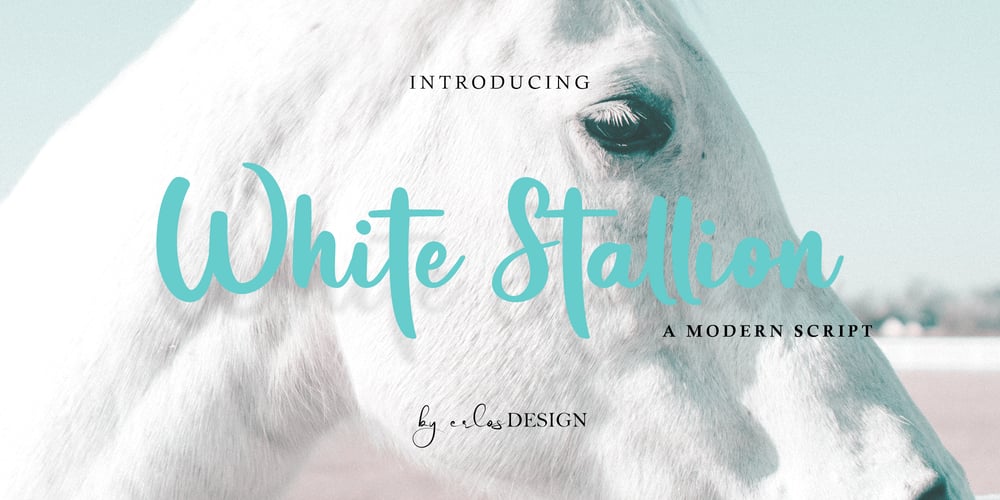
White Stallion Font Family was designed by Erlangga Suherman and published by ErlosDesign. White Stallion contains 1 styles and family package options. White Stallion is a lovely and delicate script font that exudes elegance and class. This font was particularly crafted for those who need a beautiful and refreshing look to their designs.White Stallion is PUA encoded which means you can access all of the glyphs and swashes with ease!